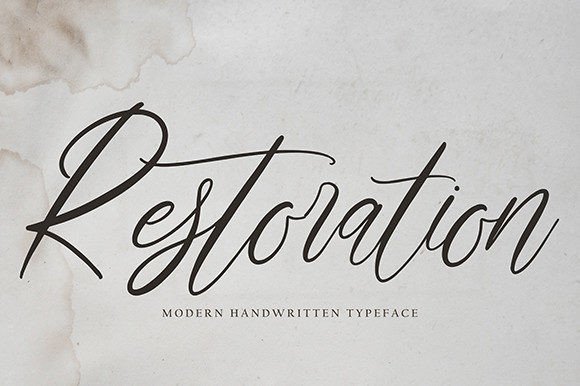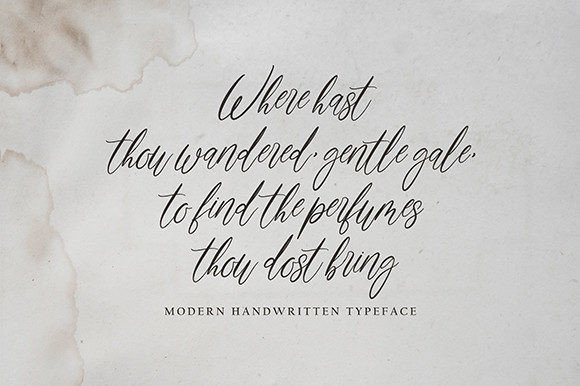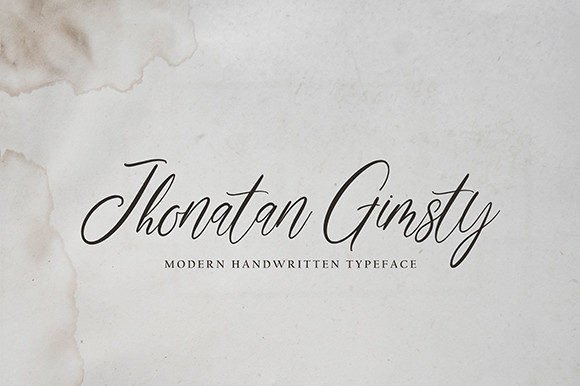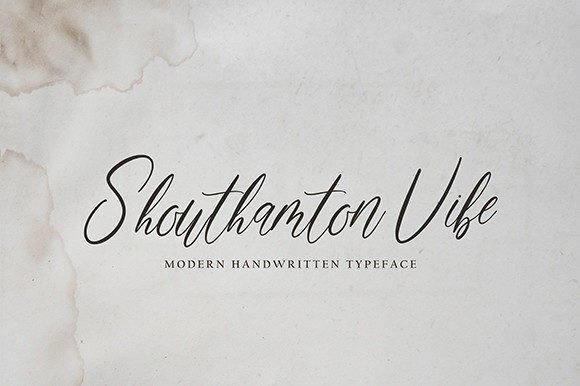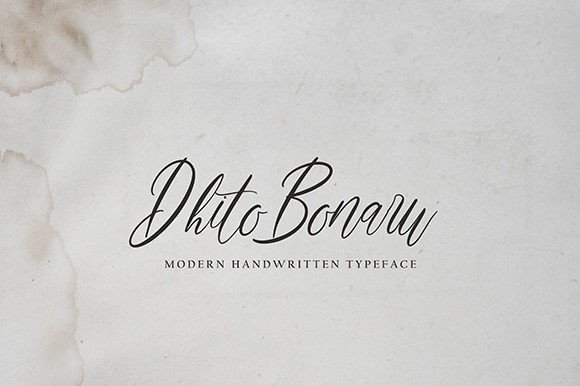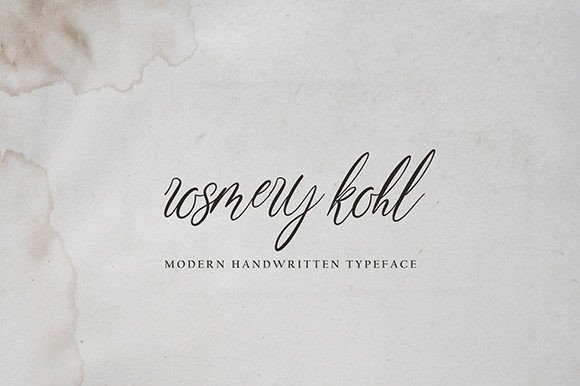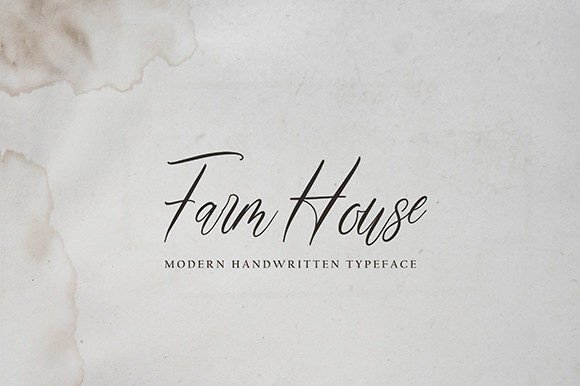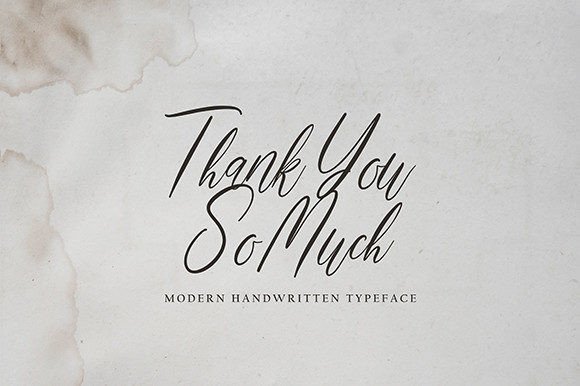
Restoration Font
Add Timeless Elegance with Restoration Font
Restoration Font is a graceful handwritten typeface with a flowing and natural feel. Its gentle curves and stylish characters bring a refined, elegant look to every design. Inspired by timeless handwriting, this font adds a soft and artistic touch that never goes out of style.
Perfect for Multiple Creative Projects
Whether you’re creating a wedding invitation, branding a boutique, or designing a personal quote, Restoration Font fits the moment. It works beautifully in:
• Wedding and event stationery
• Logo and branding design
• Quotes and greeting cards
• Product packaging
• Social media posts and digital templates
Its balanced strokes and well-spaced letters make it easy to read while maintaining a hand-crafted charm.
Easy Access to Beautiful Details
Even better, this font looks stunning in both large headlines and smaller body text. It transitions smoothly between digital and print projects, helping your work look professional every time.